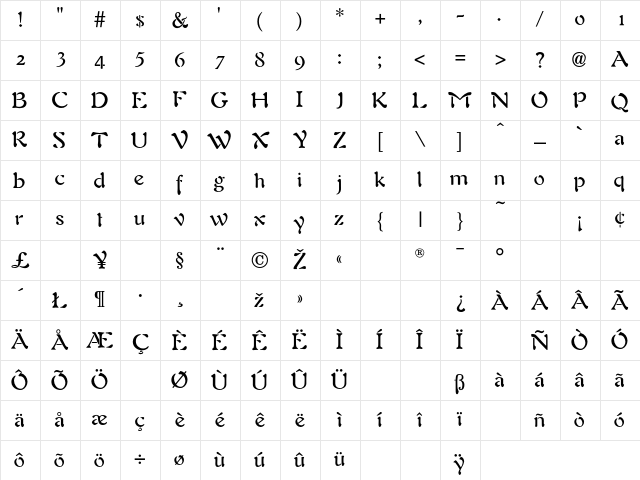
Auriol Regular
Auriol Family
Auriol Regular
Design Context for Auriol
Auriol is a composed and adaptable typeface that performs quietly and consistently across a wide range of design contexts.